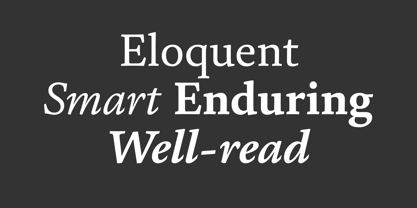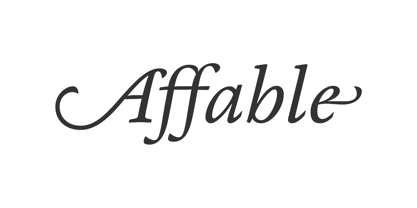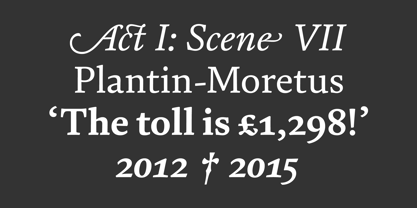
FS Brabo
FS Brabo®
by Fontsmith
FS Brabo Font Family was designed by Fernando Mello and published by Fontsmith. FS Brabo contains 12 styles family package options.
Worldly
Even though it’s a new arrival, FS Brabo has seen the world. Designed by a Brazilian working in London and studying in Belgium under a Dutchman, it’s certainly well-travelled. And it was inspired by the extraordinary archive of early book typefaces at the world-renowned Plantin-Moretus Museum in Antwerp, while Fernando Mello was attending Frank Blokland’s Expert class Type Design course at the Plantin Institute of Typography. It was there that Fernando became engrossed in the collection of early metal type, matrices, punches and type samples by figures such as Garamond and Granjon. So much so that he took on the mighty task of developing ‘a beautiful, functional, serifed text font’ of his own.
Heroic
FS Brabo’s journey from sketch to font family took an epic three years, starting in Antwerp, continuing at Fontsmith in London, and reaching its conclusion back in Fernando’s home city of São Paulo. No wonder Fernando was reminded of another titanic face-off: that of Antwerp’s Roman hero of legend, Silvius Brabo, and the evil ogre, Antigoon. Brabo came to the town’s rescue after the tyrannical giant had been charging ships’ captains extortionate taxes and chopping off the hands of those who refused to pay up. Having finally downed Antigoon after a long and terrible duel, Brabo cut off the giant’s own hand and threw it into the river Scheldt, unwittingly giving the town its name: the Dutch for ‘hand-throw’ is hand werpen. What better way for Fernando to name his literary typeface than after the hero of Antwerp’s oldest tale?
The garalde factor
FS Brabo is not a revival, but a very much a contemporary, personal interpretation of a garalde – a class of typeface originating in the 16th century that includes Bembo, Garamond and Plantin, with characteristically rounded serifs and moderate contrast between strokes. Brabo’s ‘ct’ and ‘st’ ligatures, upper-case italic swashes and contextual ending ligatures – ‘as’, ‘is’, ‘us’ – all preserve the beauty and character of traditional typefaces, but its serifs are chunkier than a garalde. Their sharp cuts and squared edges give them a crispness at text sizes, helping to bring a beautifully bookish personality to hardworking modern applications.
A workhorse with pedigree
It may give the appearance of a simple, four-weight typeface, but FS Brabo has hidden depths beneath its simplicity and beauty. OpenType features such as cap italic swashes, contextual ending swashes – programmed only to appear at the end of words – and stylistic alternatives make this a complete and well-equipped typeface. Comprehensive testing was carried out at text and display sizes, too, to prevent counters from filling in. All of which makes FS Brabo a very modern take on a traditional workhorse serif typeface: colourful and versatile enough to adorn not just editorial projects but also signage, advertising and logotypes.